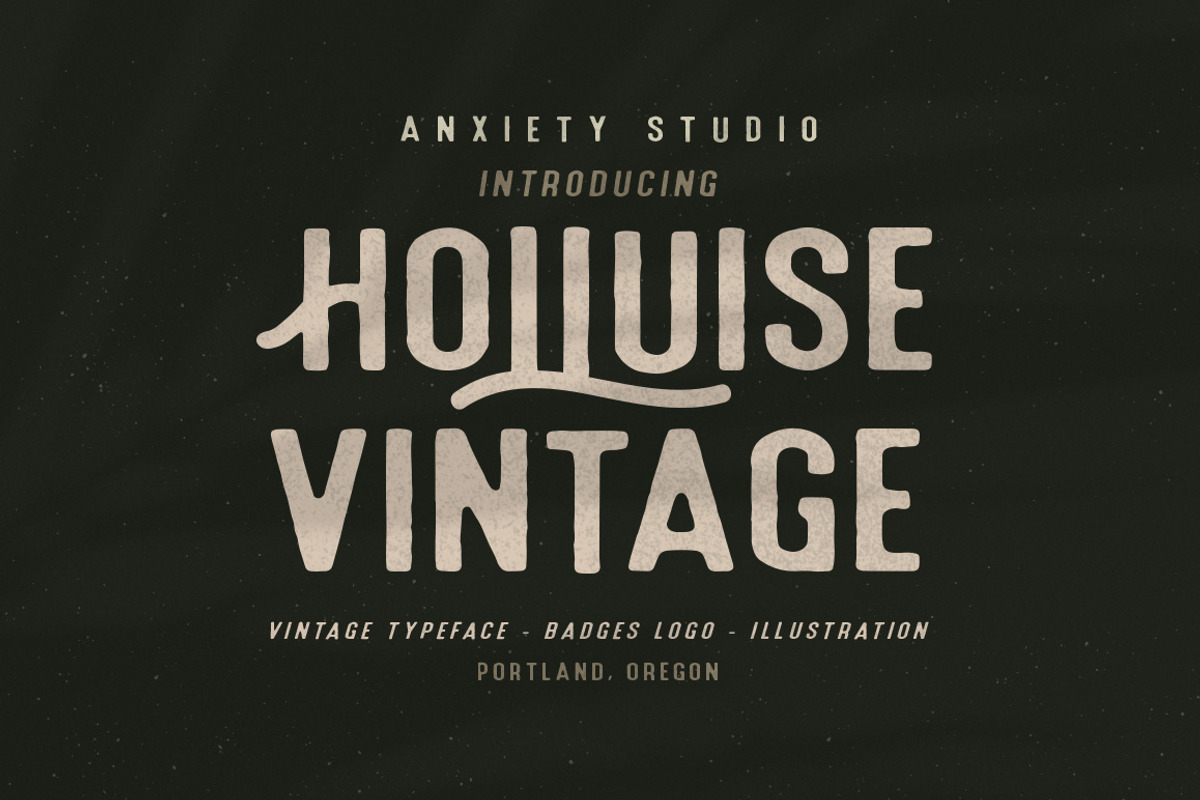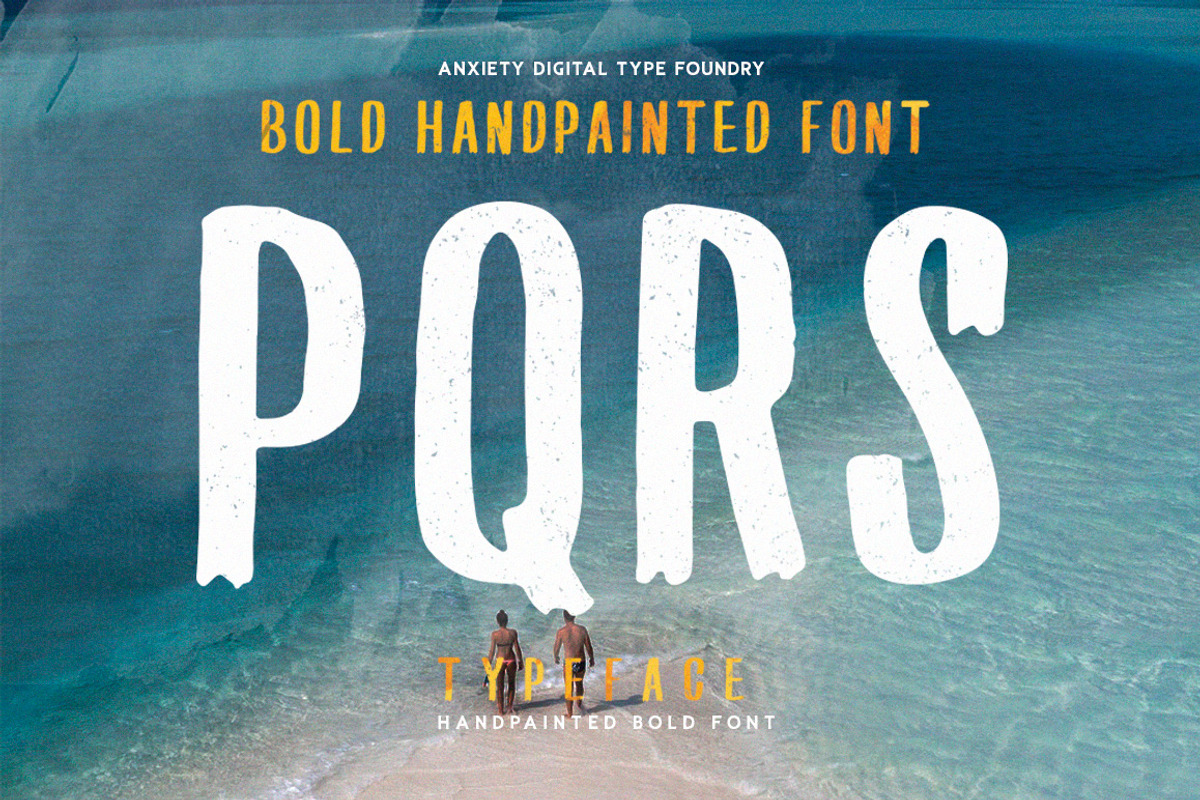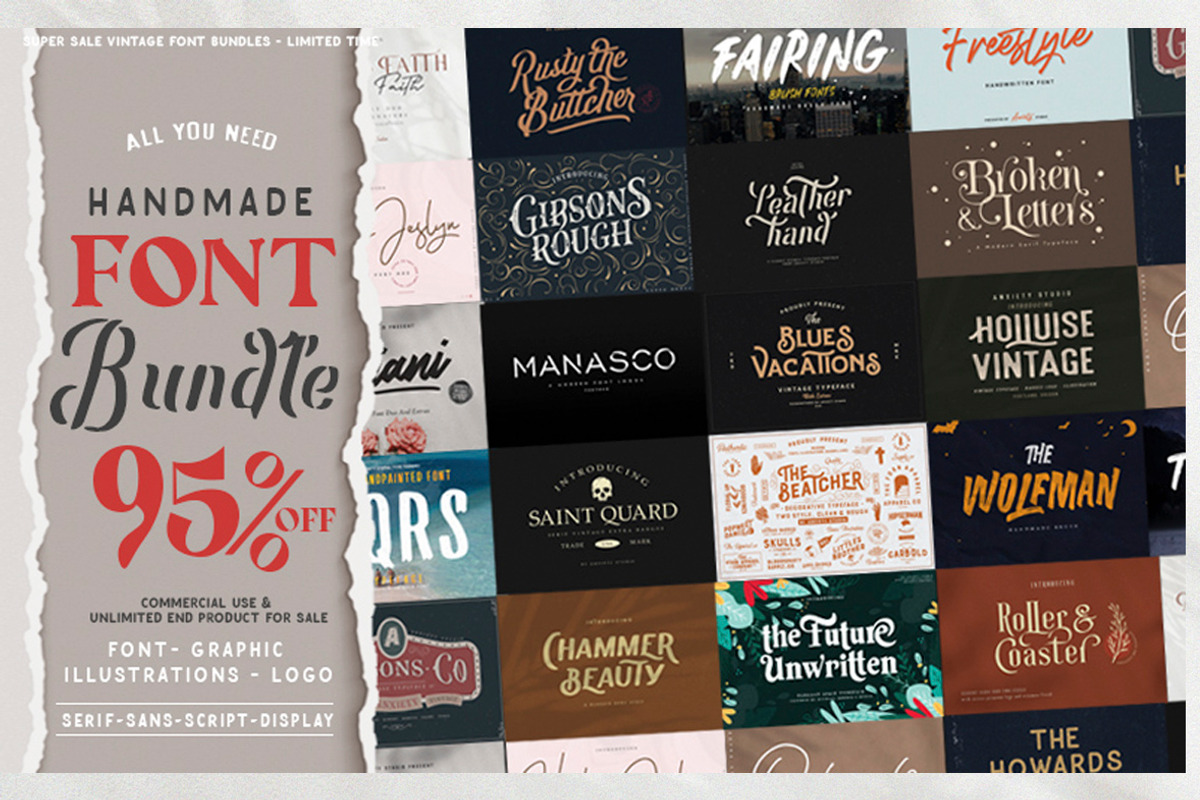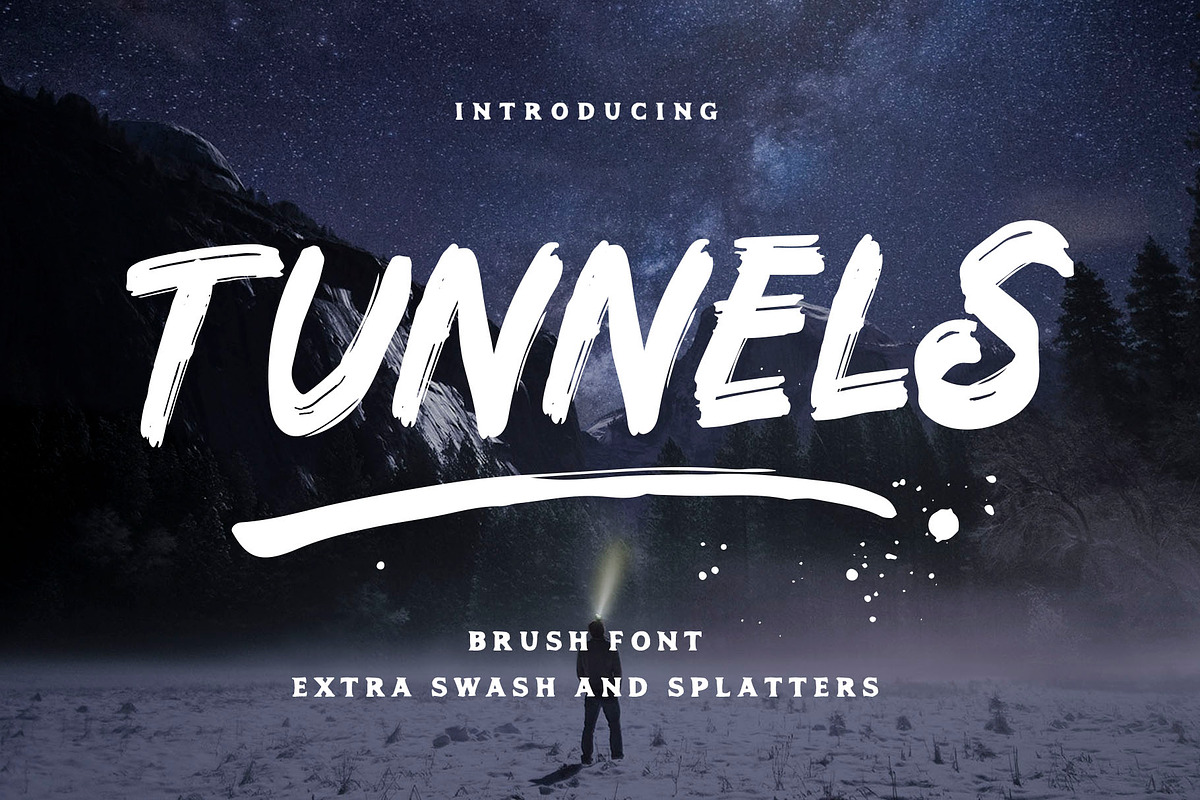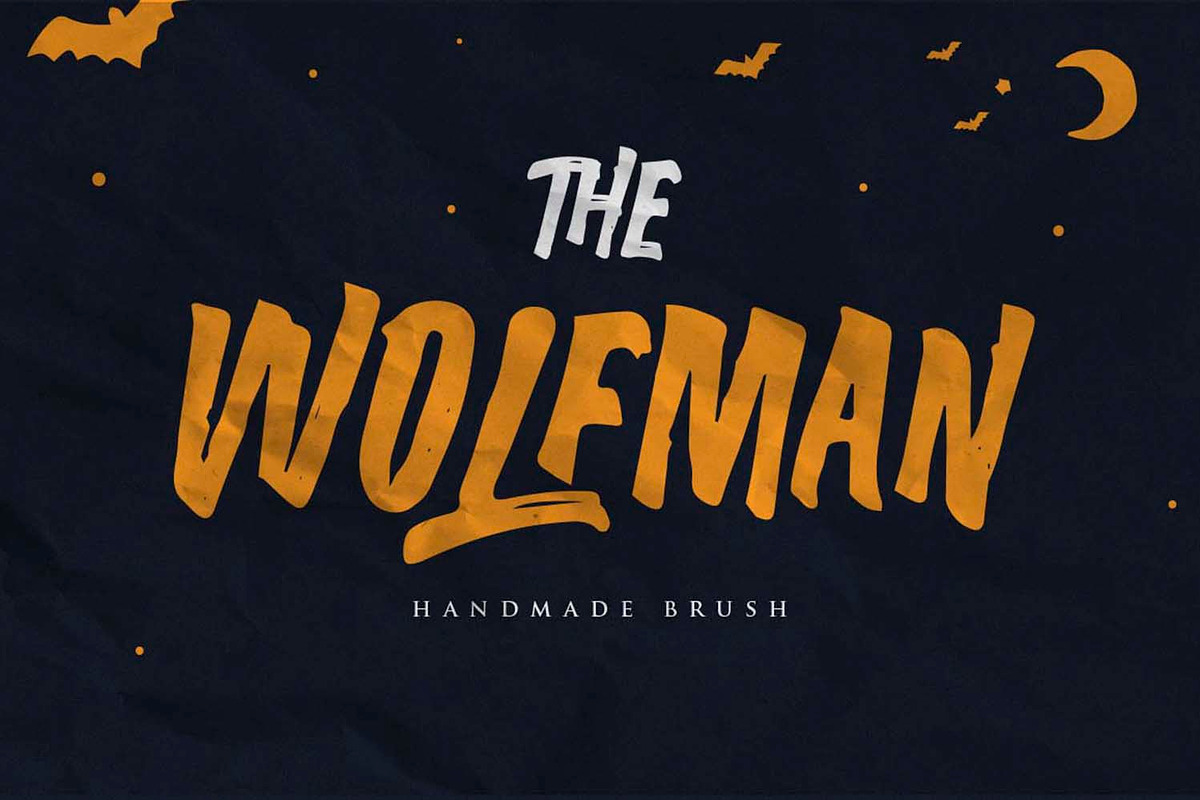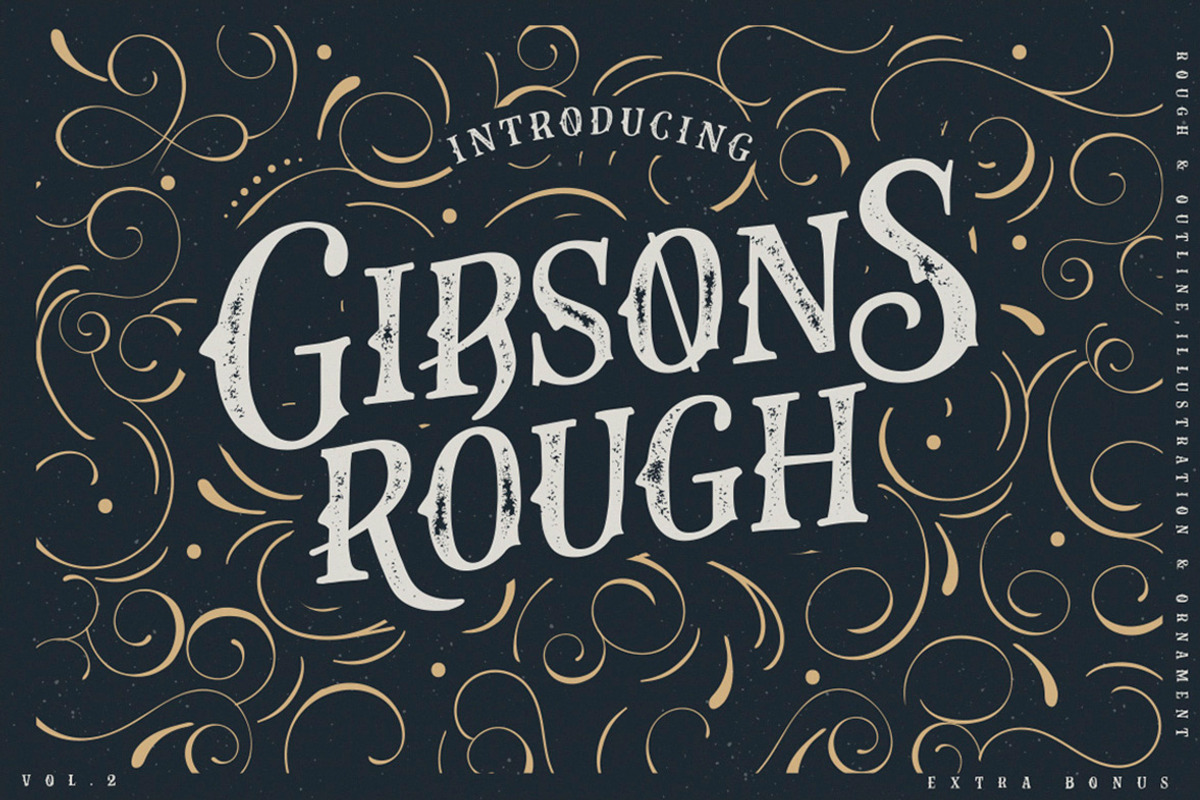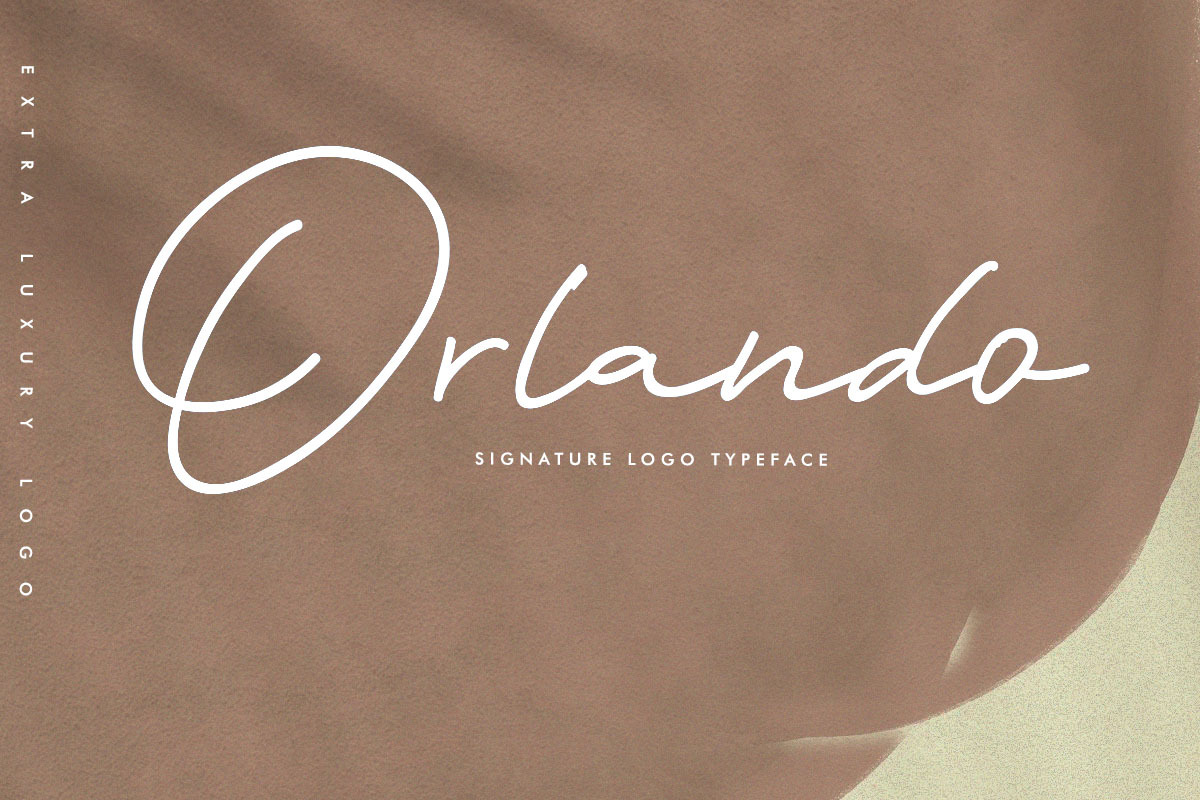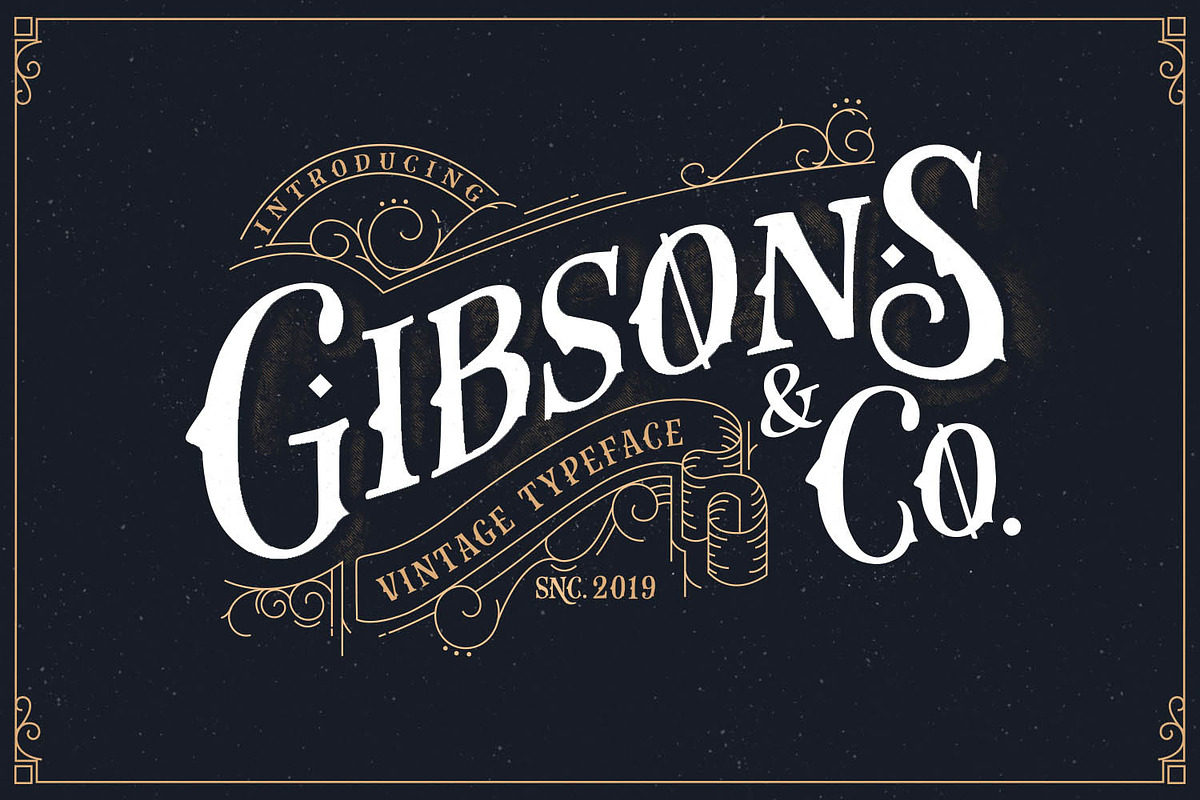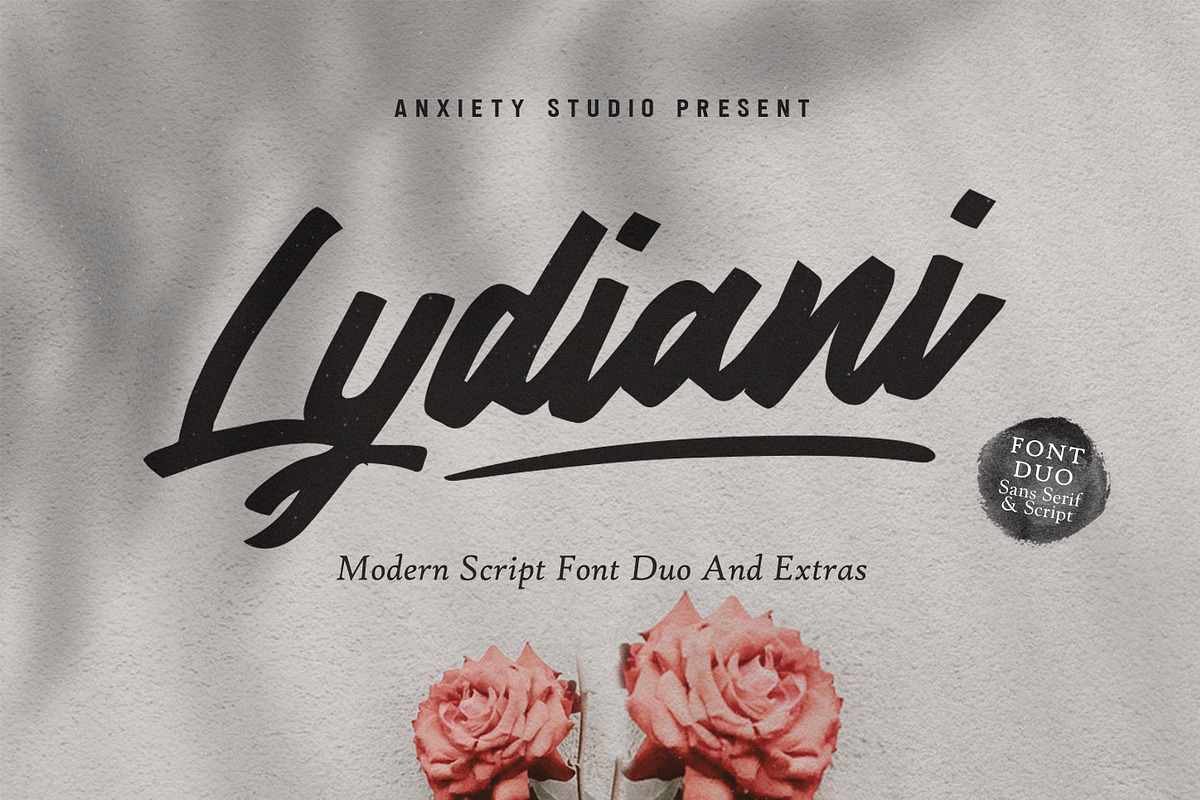
HANDMADE FONT BUNDLE
Included in this bundle are:
- Anetha Faith Font Duo
- Blues Vacations
- Fairing Typeface
- Freestyle Script
- Gibsons co Vol.2 (Extra)
- Hellena Jeslyn Script
- Lydiani Script Font Duo
- Orlando Signature
- Rusty The Buttcher
- The Wolfman
- TunnelsTypeface
- Chammer Beauty Classic Sans Serif
- Broken Letters Modern Serif
- Manasco -A Modern Font Logos
- PQRS Bold Font
- Holluise Vintage (Extra Badges Logo)
- Leatherhand Stencil Fontduo
- Roller Coaster Serif (Bonus)
- Blues Vacations Extra Logo
- Gibsons Co Vol.1 (Extra Ornament)
- Saint Quard Serif Extra Logo
- The Beatcher Typeface (Extras)
- Marotho Typeface
- Theodore bagwell ( Bonus Logo Template)
- Stylistic Alternates & Ligatures